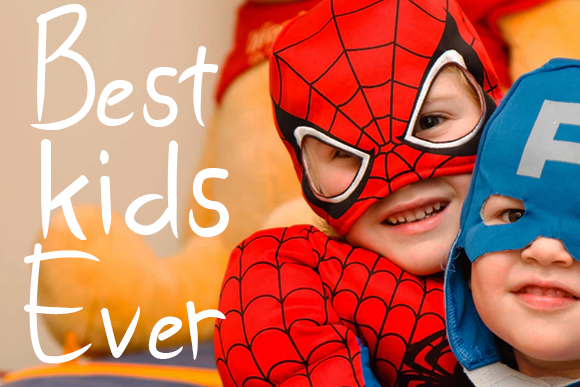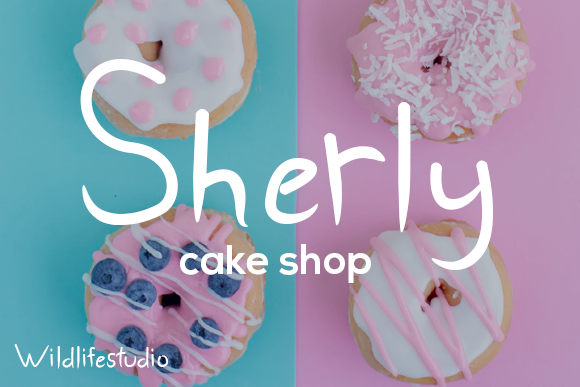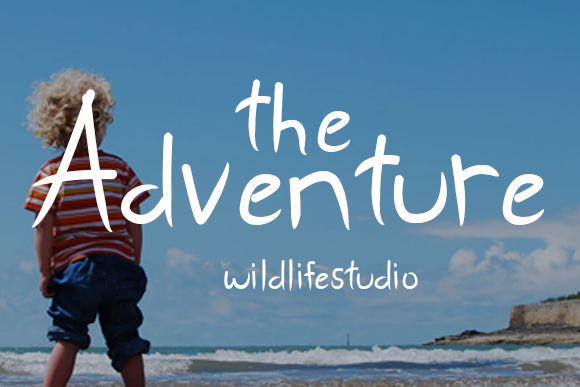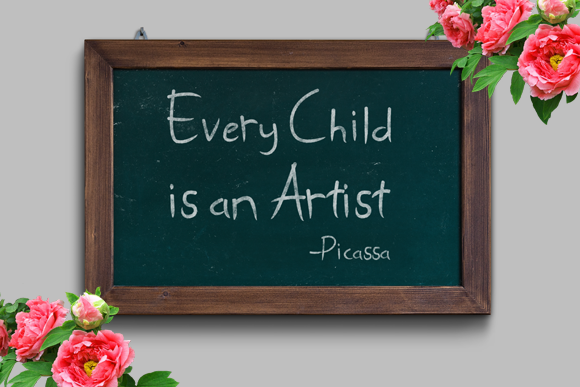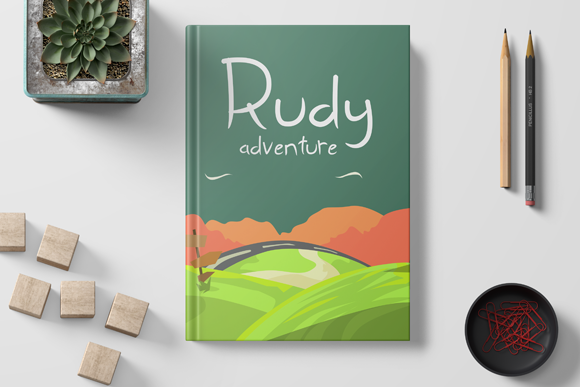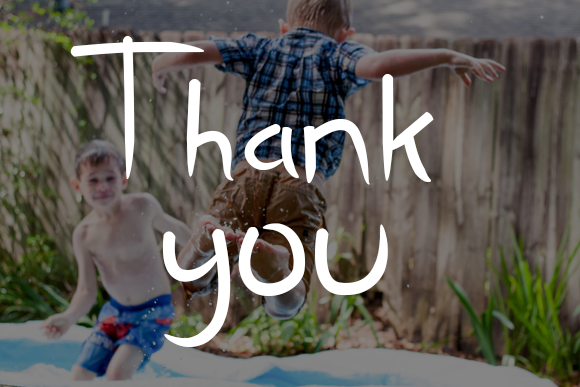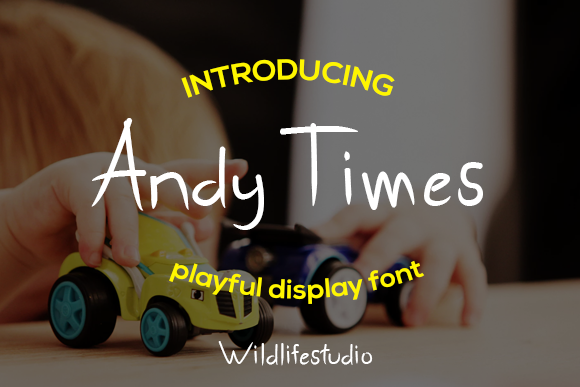
The Andy Times Font: A Playful Display Font to Elevate Your Designs
I’ll never forget the time I was working on a project for a client who wanted a font that was both editorial and fun. I had been searching for hours, but nothing seemed quite right. That was until I stumbled upon the Andy Times font. This playful display font has been a game-changer for me, and I’m excited to share my experience with you.
So, what do I love about the Andy Times font? Here are a few things that make it stand out:
- ✨ It’s truly unique! The handwritten style sets it apart from other fonts on the market.
- ✅ It’s incredibly versatile and adaptable. Whether you’re working on a editorial project or a fun design, Andy Times fits right in.
- ✅ The font is highly legible, even at smaller sizes.
- 🤔 Some of the letters may appear a bit inconsistent in terms of spacing. This can be adjusted in some design platforms, but it’s something to keep in mind.
- ⚠️ The font may not be suitable for very long blocks of text. It’s best used as a display font or for short paragraphs.
The Backstory Behind Andy Times
The Andy Times font was designed by a team of creatives who wanted to create a unique and playful font that would add a touch of personality to any design. Inspired by classic handwritten fonts, Andy Times brings a sense of nostalgia and fun to any project.
| Font Name | Andy Times Font |
| Author | wildlifestudio19 |
| What type of font is Andy Times? | Andy Times is a playful display font with a handwritten style. |
| Is Andy Times suitable for long blocks of text? | No, Andy Times is best used as a display font or for short paragraphs. |
| Does Andy Times come with OpenType features? | Yes, Andy Times comes with a range of OpenType features, including glyphs and stylistic alternates. |